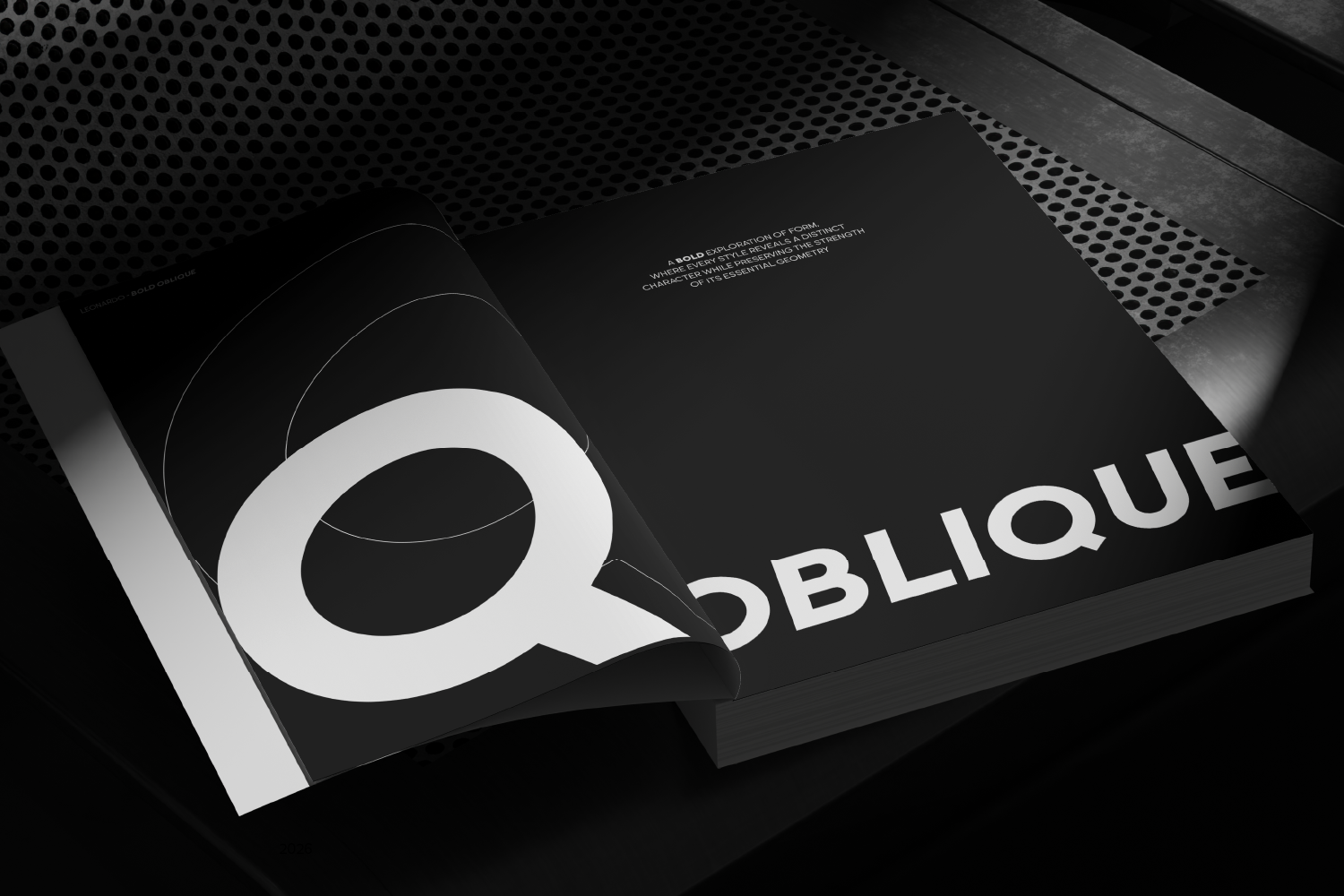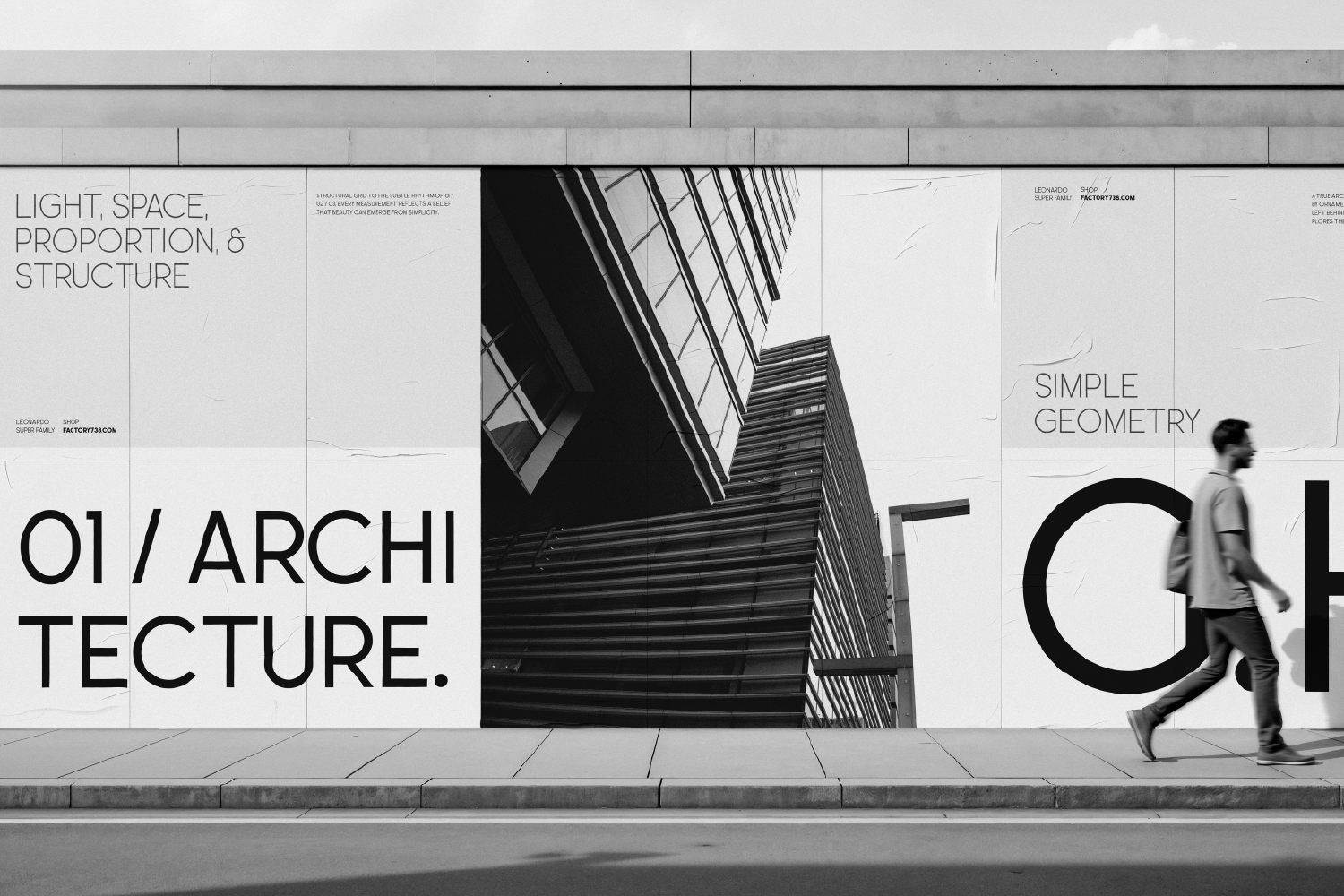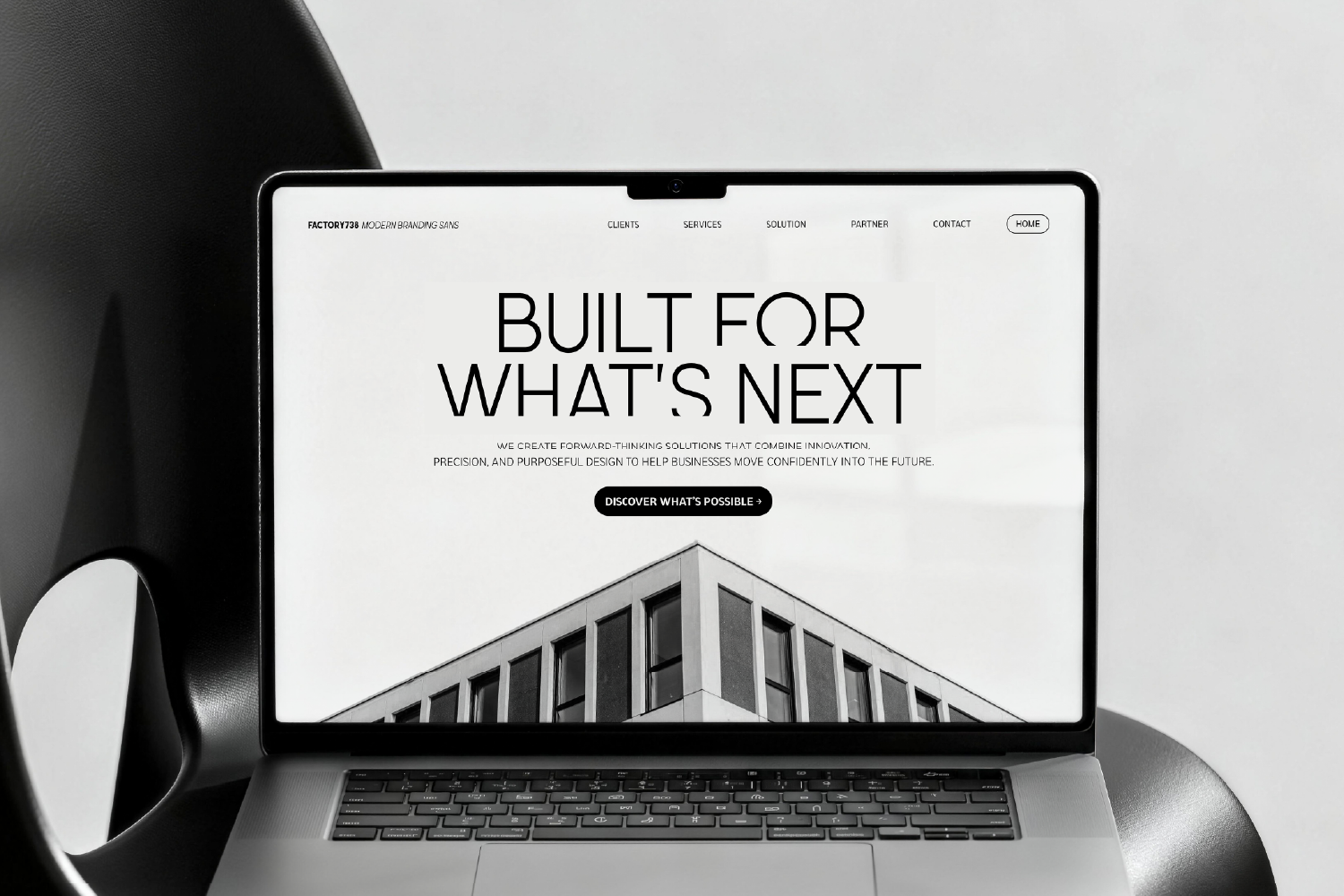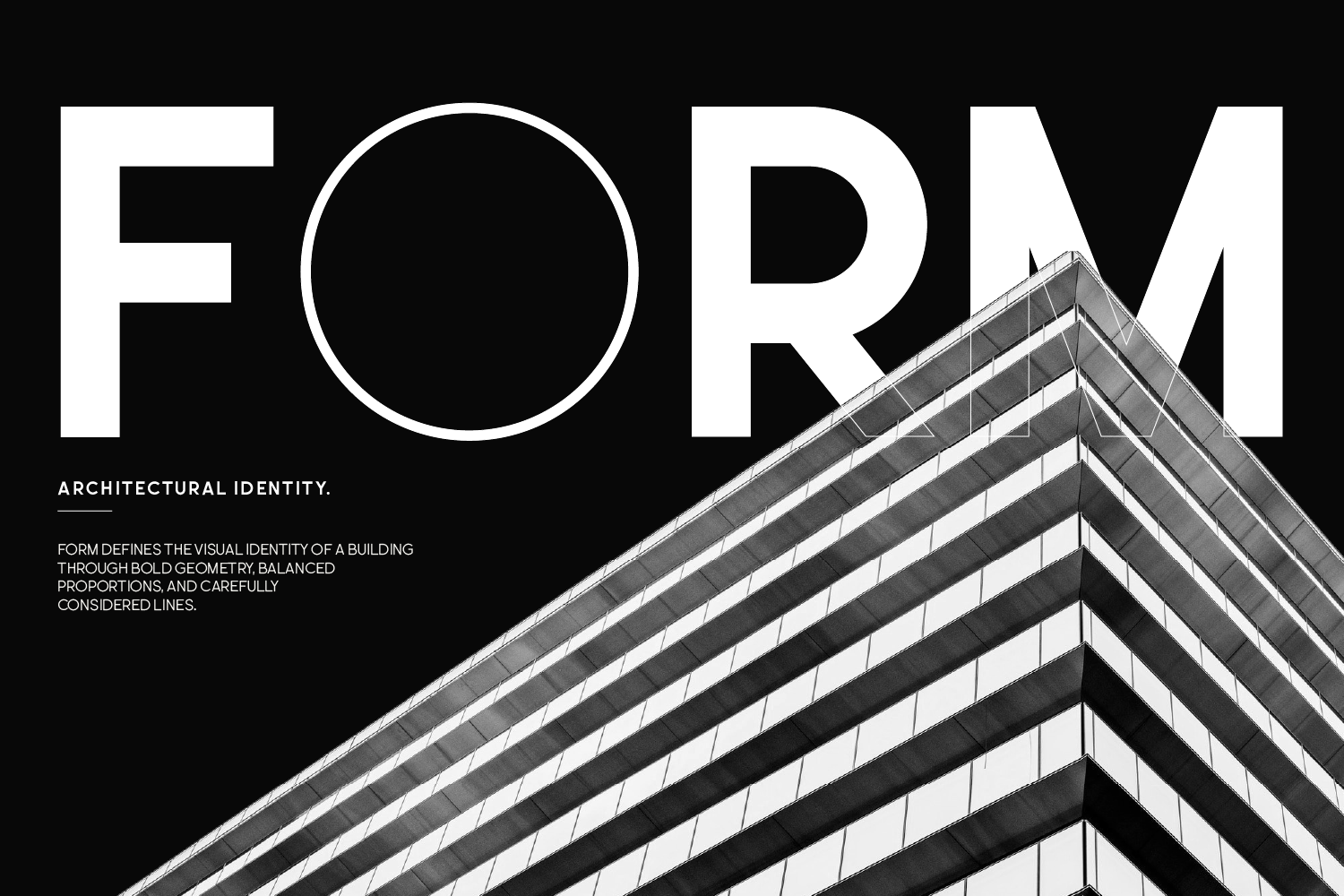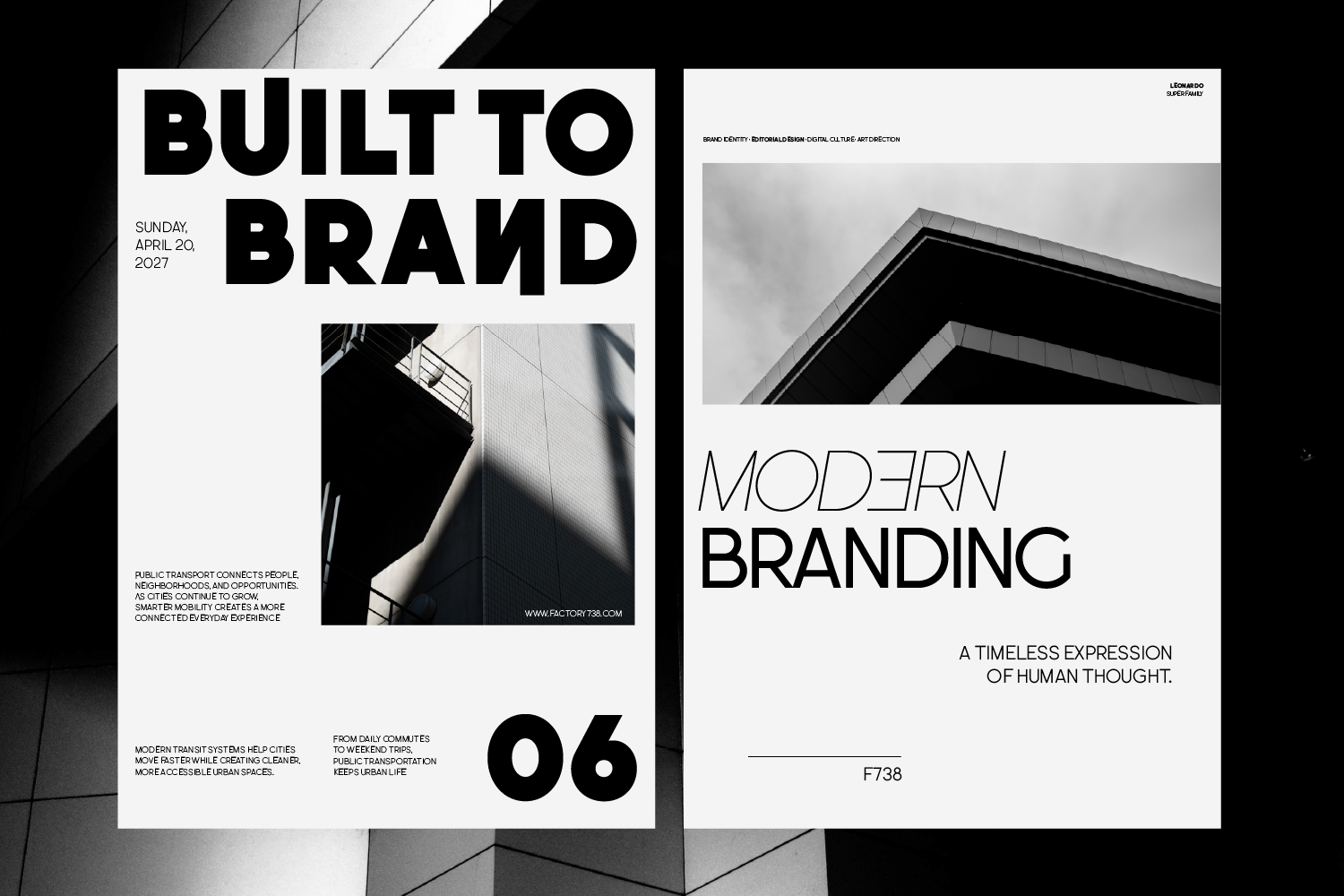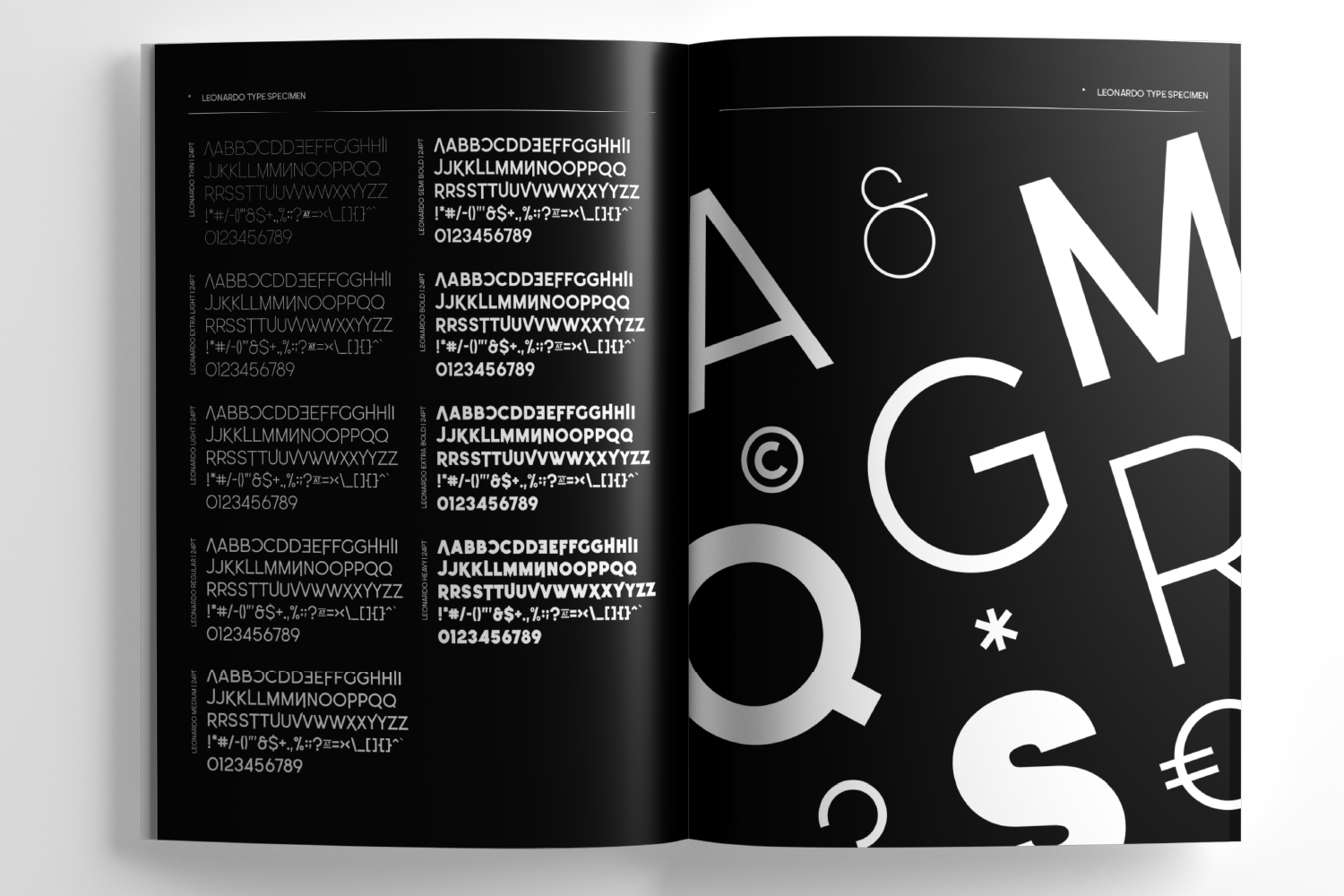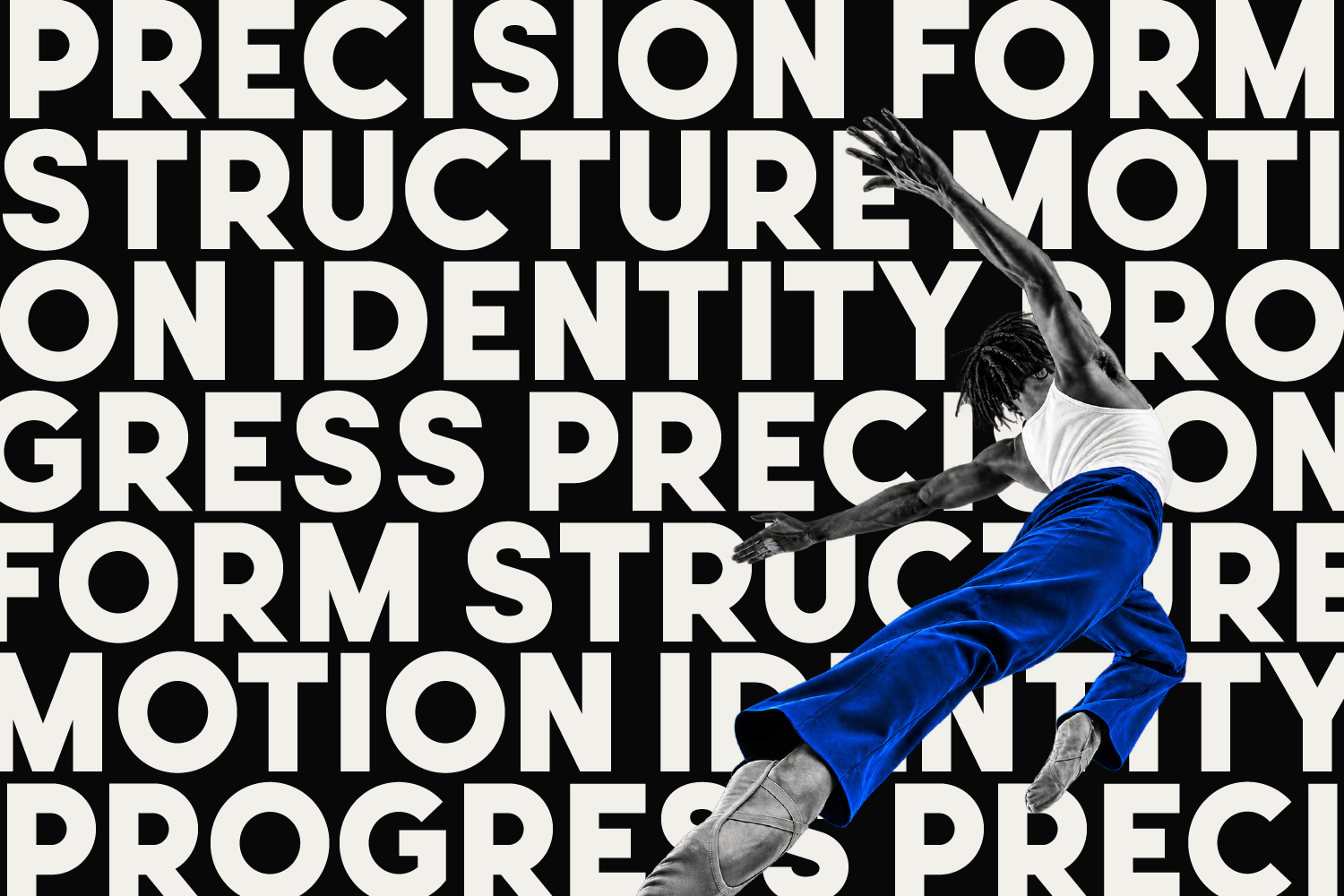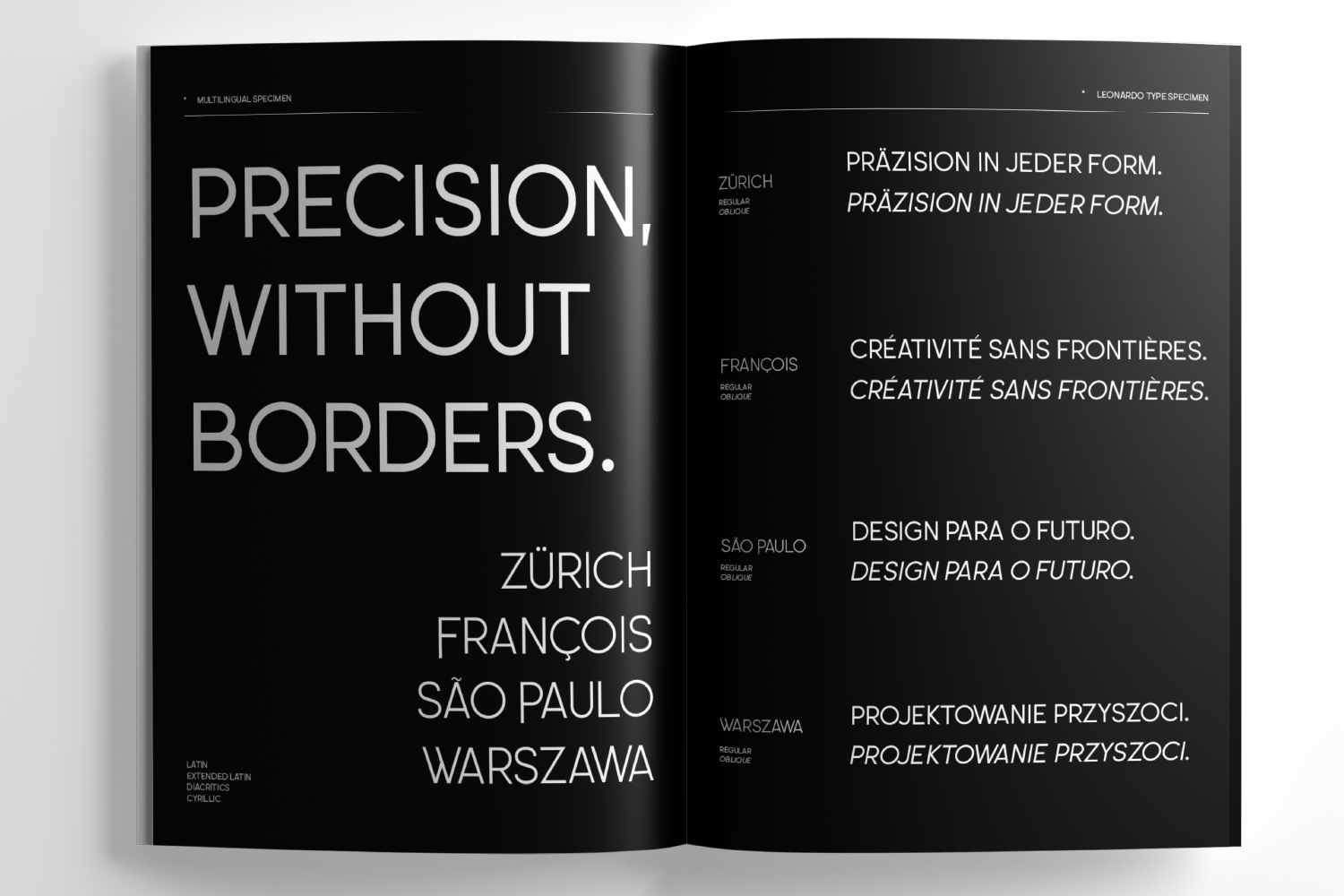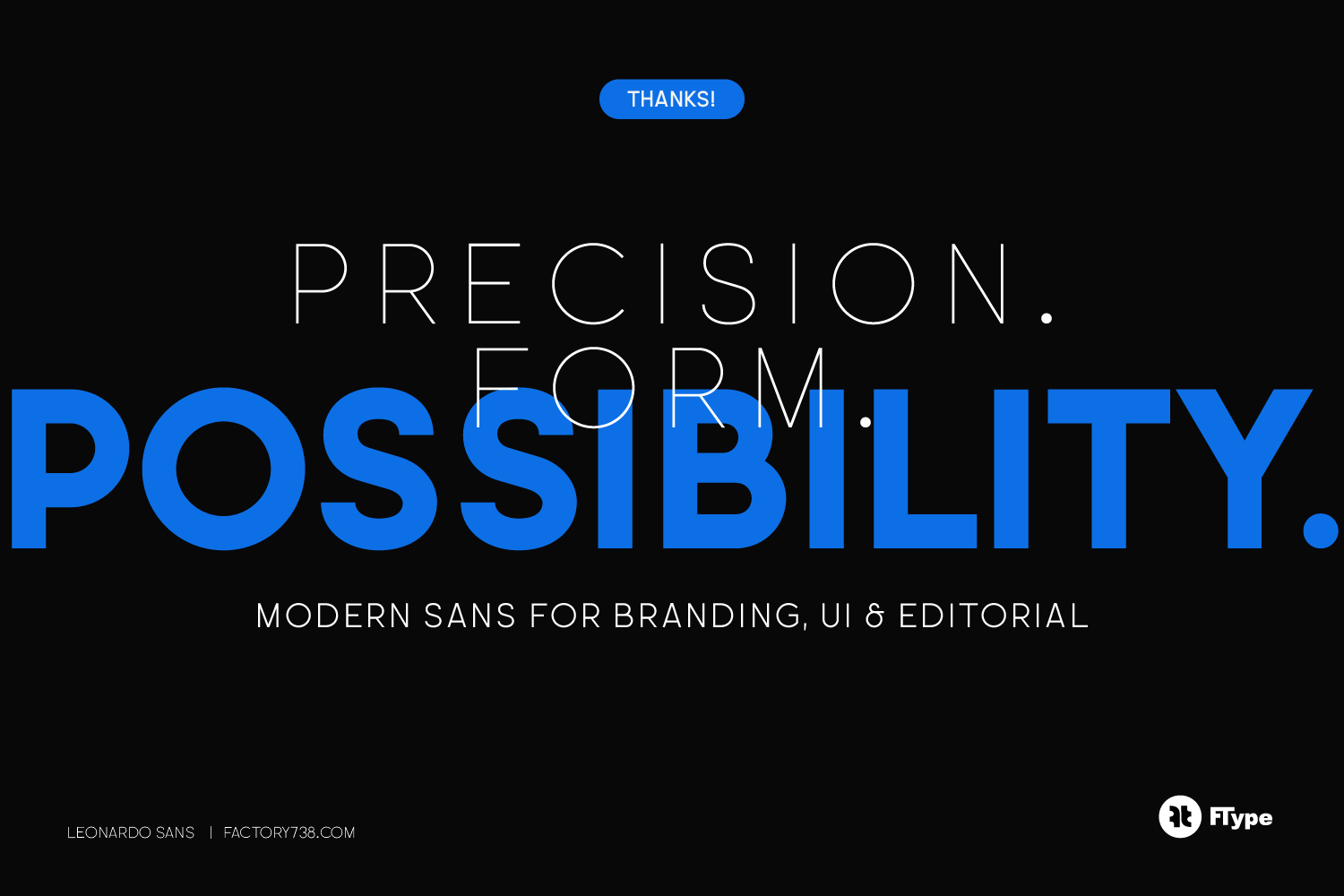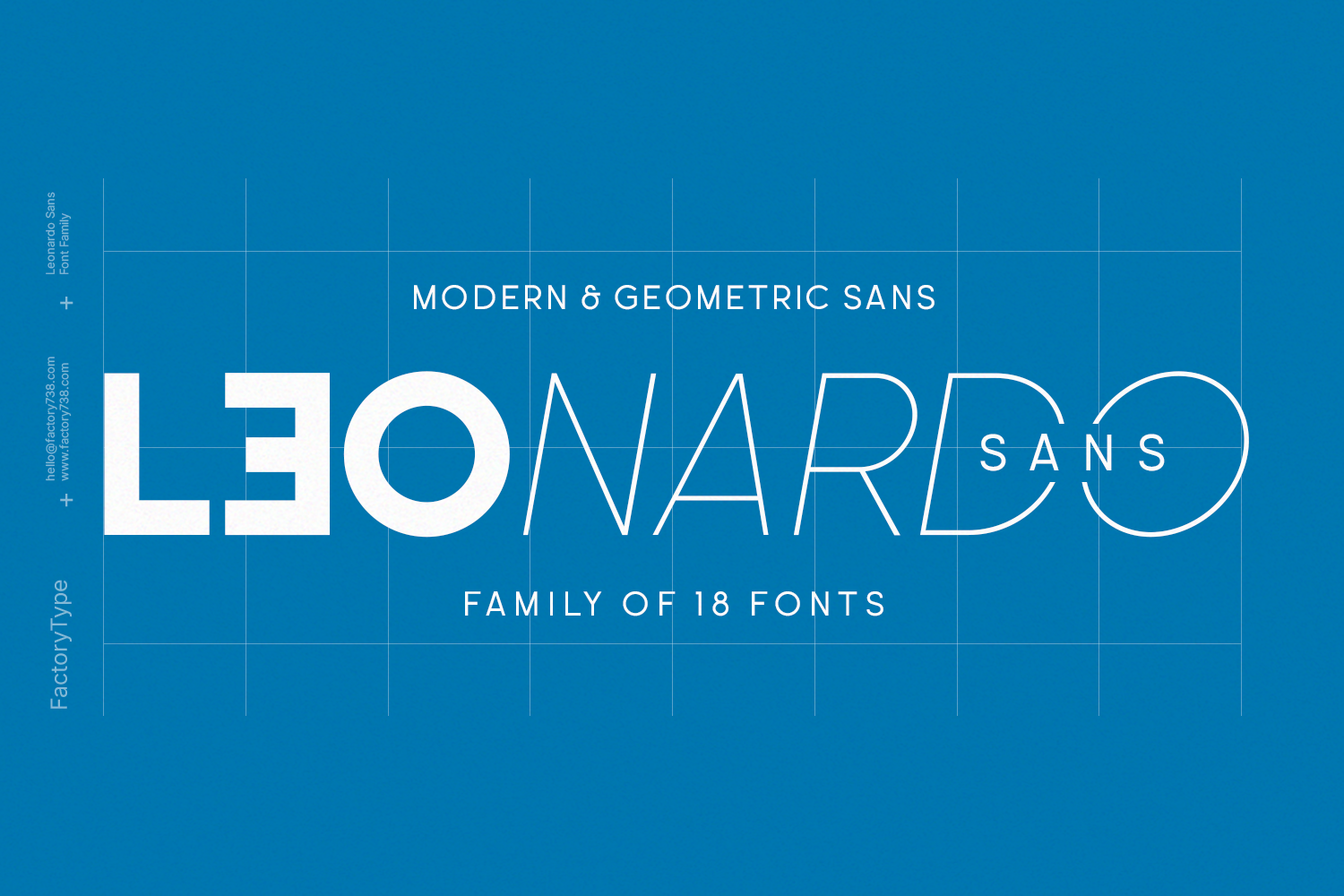
Leonardo Sans: A Thoughtful Geometric Sans for Clear Communication
Meet Leonardo Sans, a modern geometric sans-serif family formerly known as Leo Sans. We’ve evolved this typeface to bring even more architectural precision and timeless clarity to your work. Drawing inspiration from clean minimalist forms, Leonardo Sans offers a balanced and confident tone that adapts seamlessly to any professional environment.
We crafted this versatile 18-style library to be a sincere and dependable tool for your branding, modern logotypes, and high-impact posters. Whether you are designing for the web, signage, or editorial layouts, Leonardo Sans provides a sophisticated structure with powerful OpenType features—ensuring your message feels both structurally solid and effortless to read.
FEATURES
- 18 Total Styles: 9 weights from delicate to powerful, across both Regular and Oblique styles.
- Technical Precision: Deep OpenType features including fractions, tabular figures, arrows, and ligatures.
- Ideal for: Logo design, display use, corporate systems, and editorial headlines.
- Language: Comprehensive multilingual support for 120+ languages.